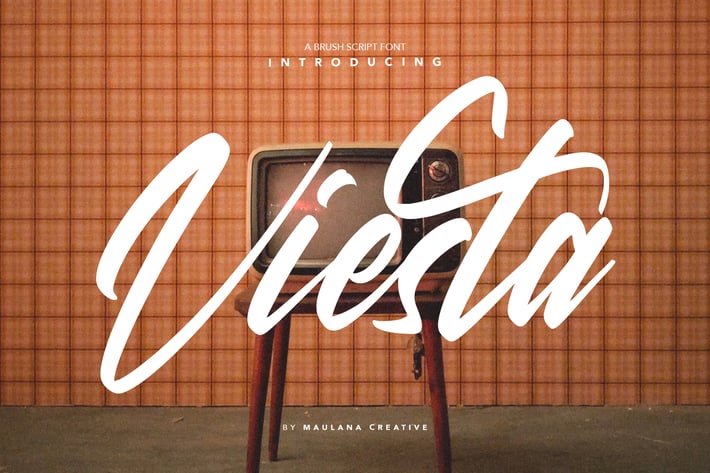
Viesta Brush Script Vintage Handmade Font Typeface
Give your designs an authentic handcrafted feel. "Viesta Brush Script Vintage Handmade Font Typeface" is perfectly suited to signature, stationery, logo, typography quotes, magazine or book cover, website header, clothing, branding, packaging design and more.